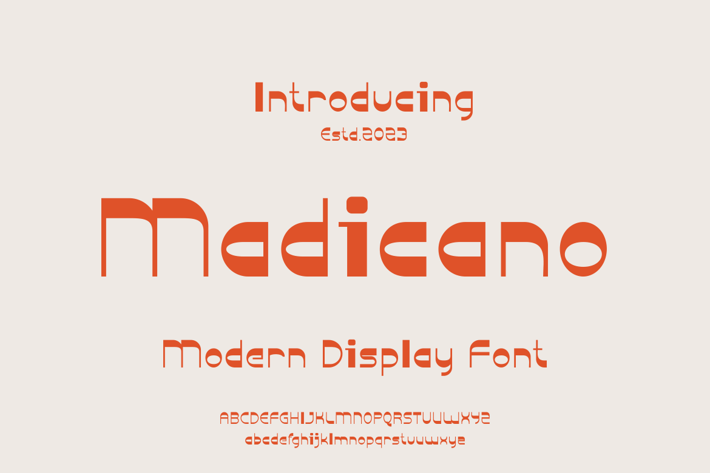
Madicano Font
Introducing our new product Madicano Font - Modern Font
Madicano Font - Modern Font is a bold and authentic display font. The font is suitable for any branding project like logo, t-shirt printing, esport, and many more. outstanding in a wide range of contexts.